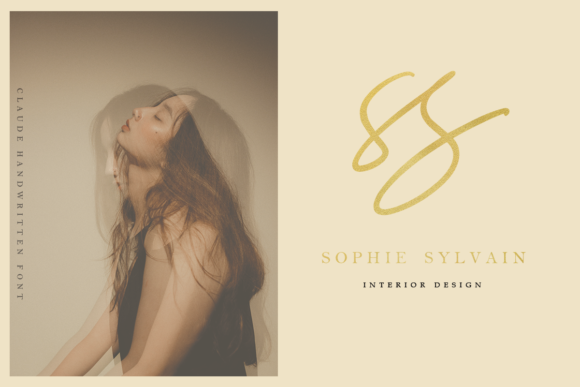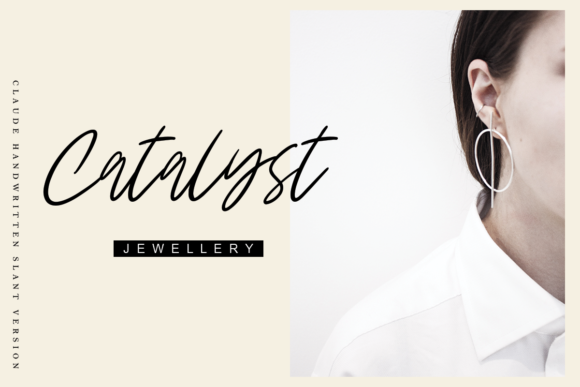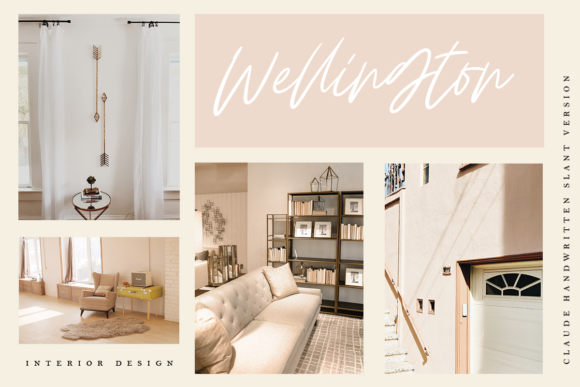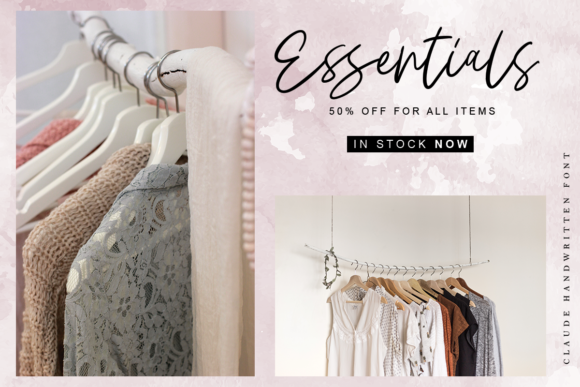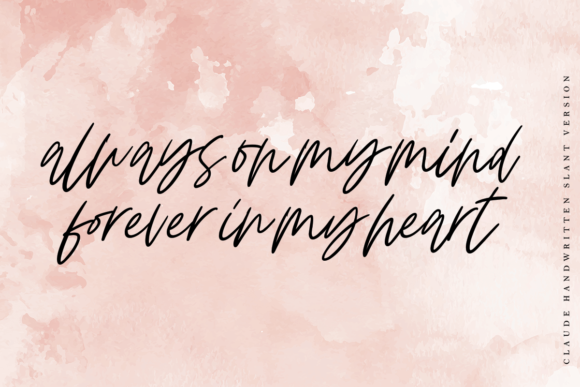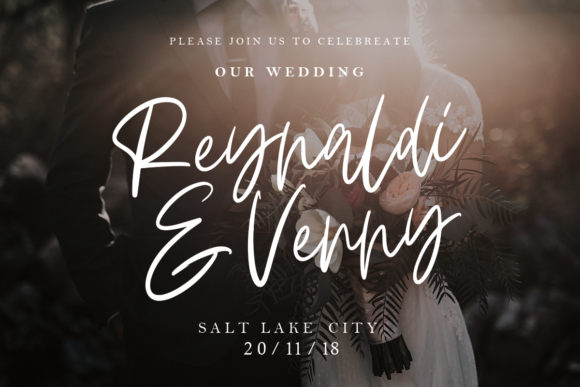
Introduction to Claude Family Font
The Claude is a beautiful handwritten family which comes in four unique variations.
It will give your designs an elegant and feminine feel The flowing characters are ideal for creating logos, badges, packaging, titles, posters, t-shirts / clothes, greeting cards, wedding invitations and more.
Key Features of Claude Family Font